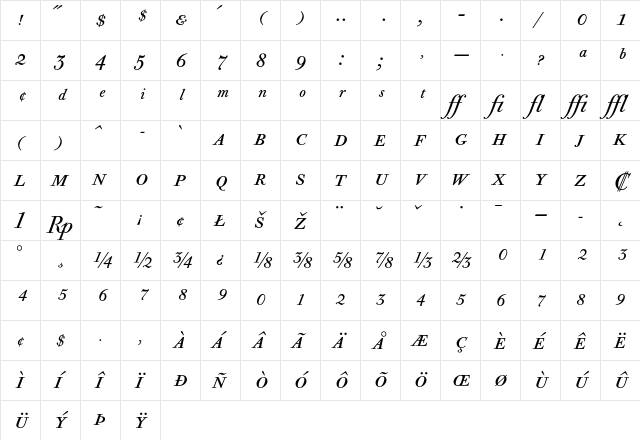
Bodoni Old Face BE Italic Expert
Design Context for Bodoni Old Face BE Typeface
Bodoni Old Face BE takes a measured approach to typography — its balanced proportions and neutral character make it a reliable workhorse for both digital and print work. Its italic angle brings a sense of urgency and motion to the letterforms.
Pro Tip: Try Bodoni Old Face BE for annotation and caption copy alongside an upright companion — the contrast in angle creates a dynamic but ordered typographic system.